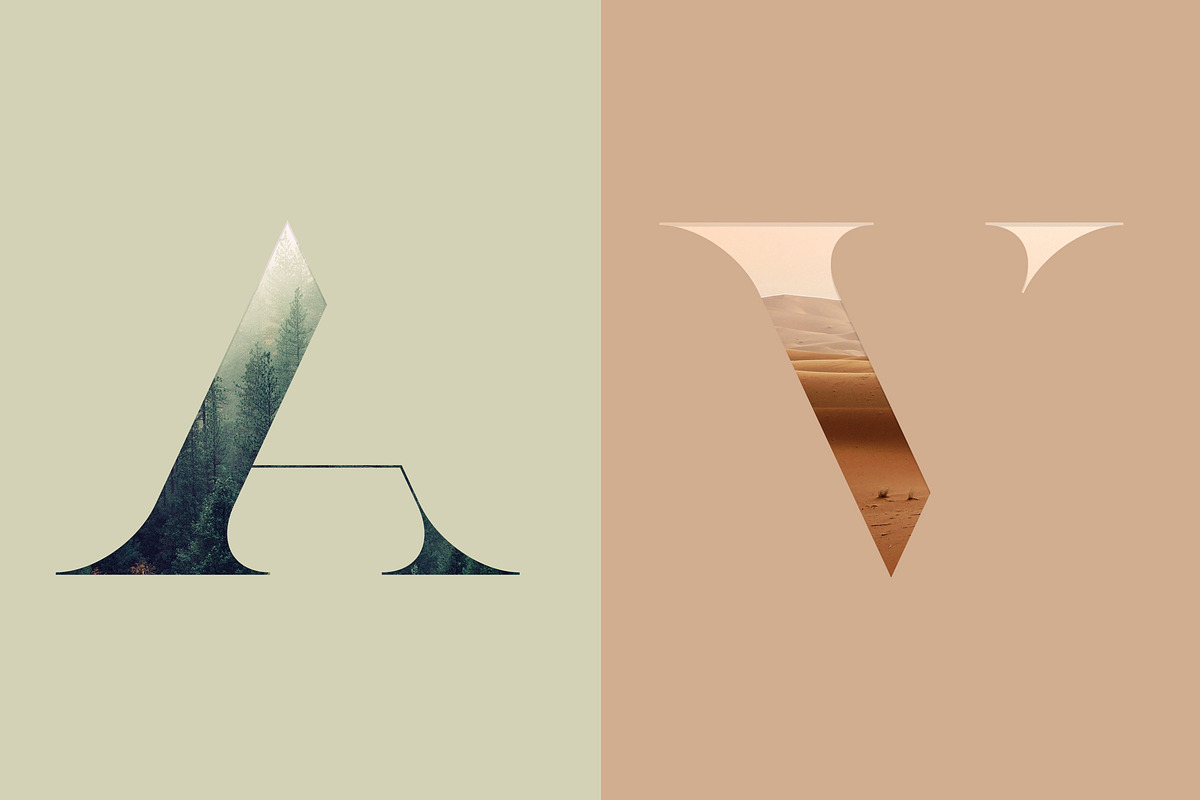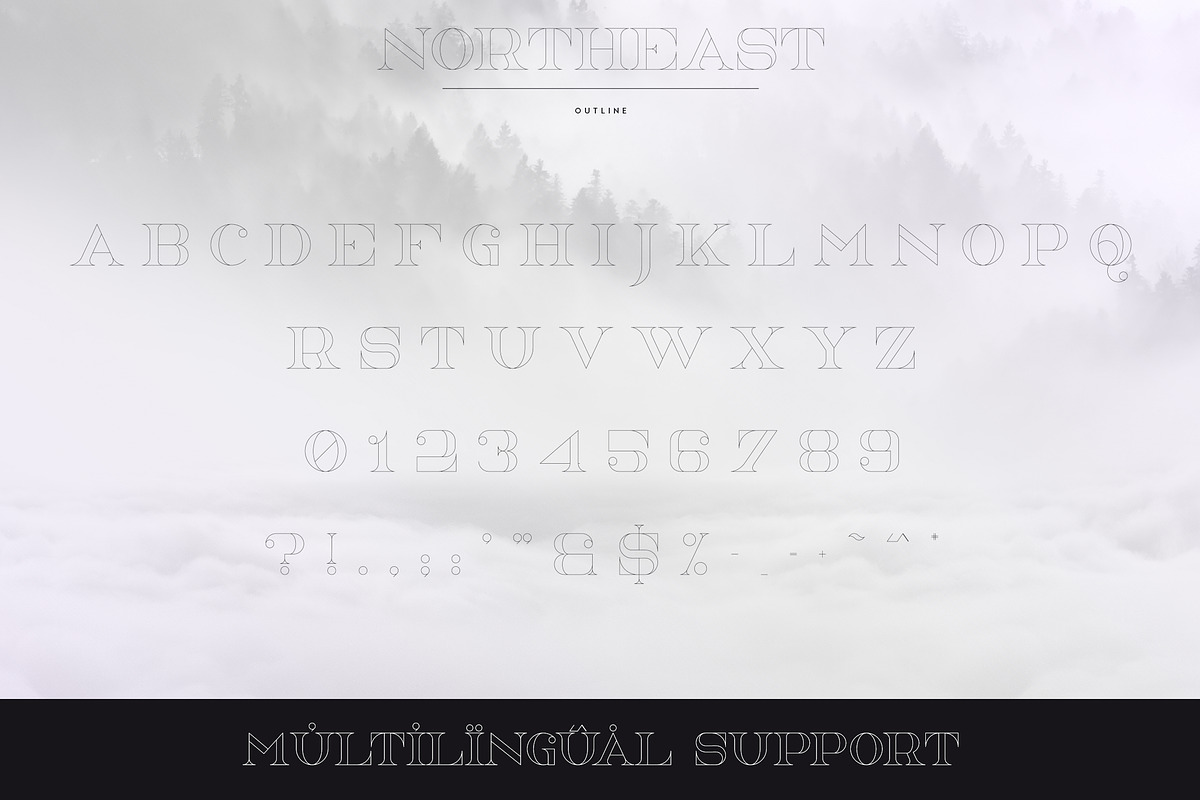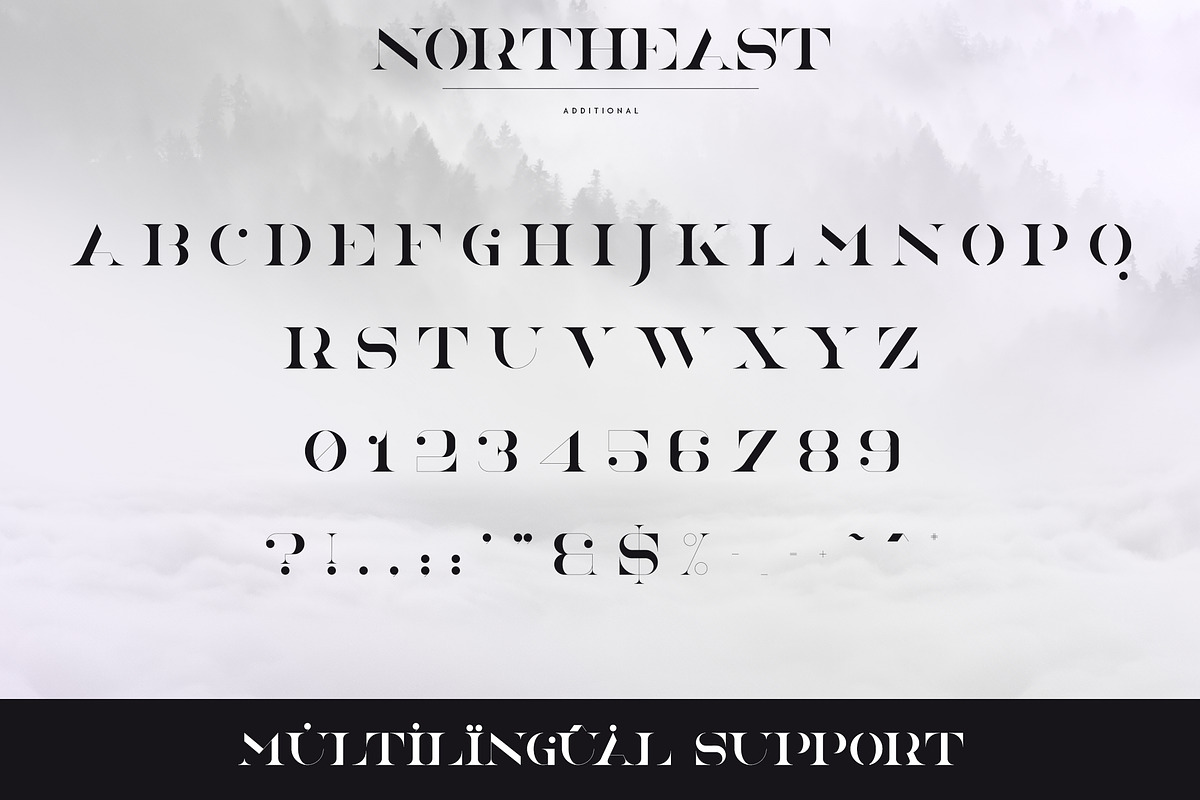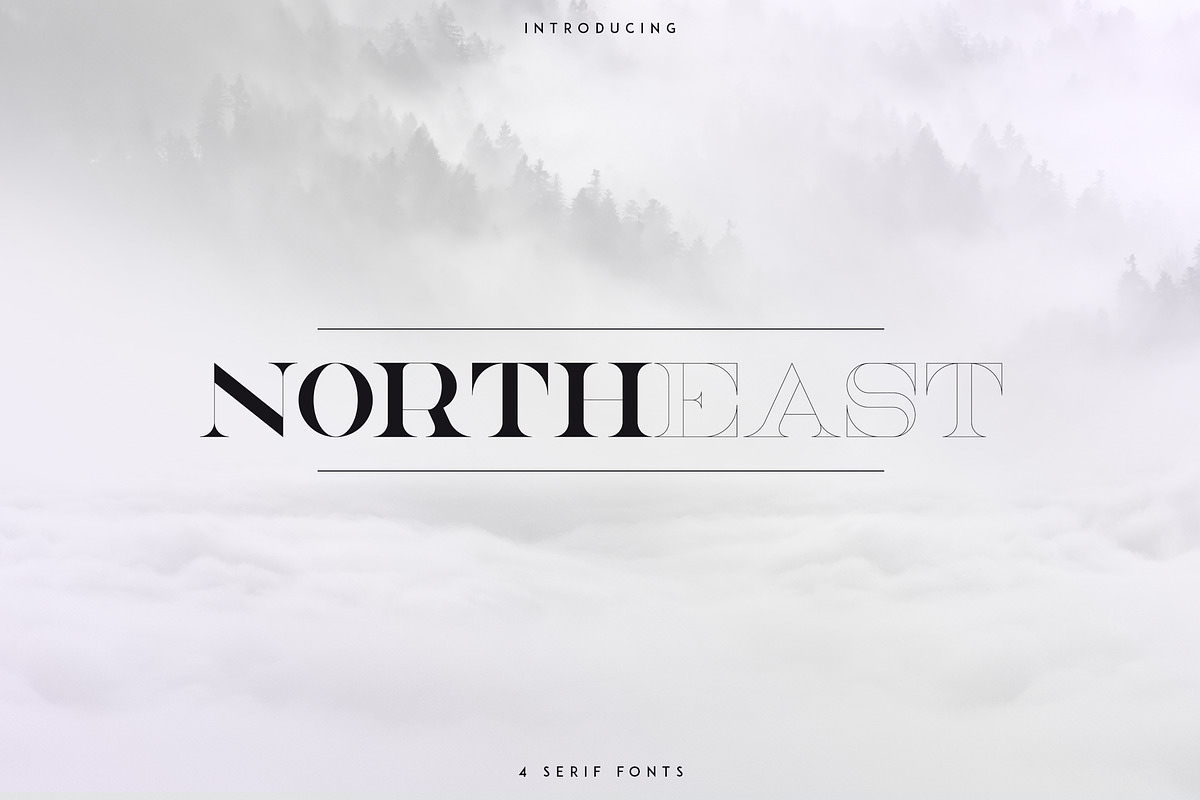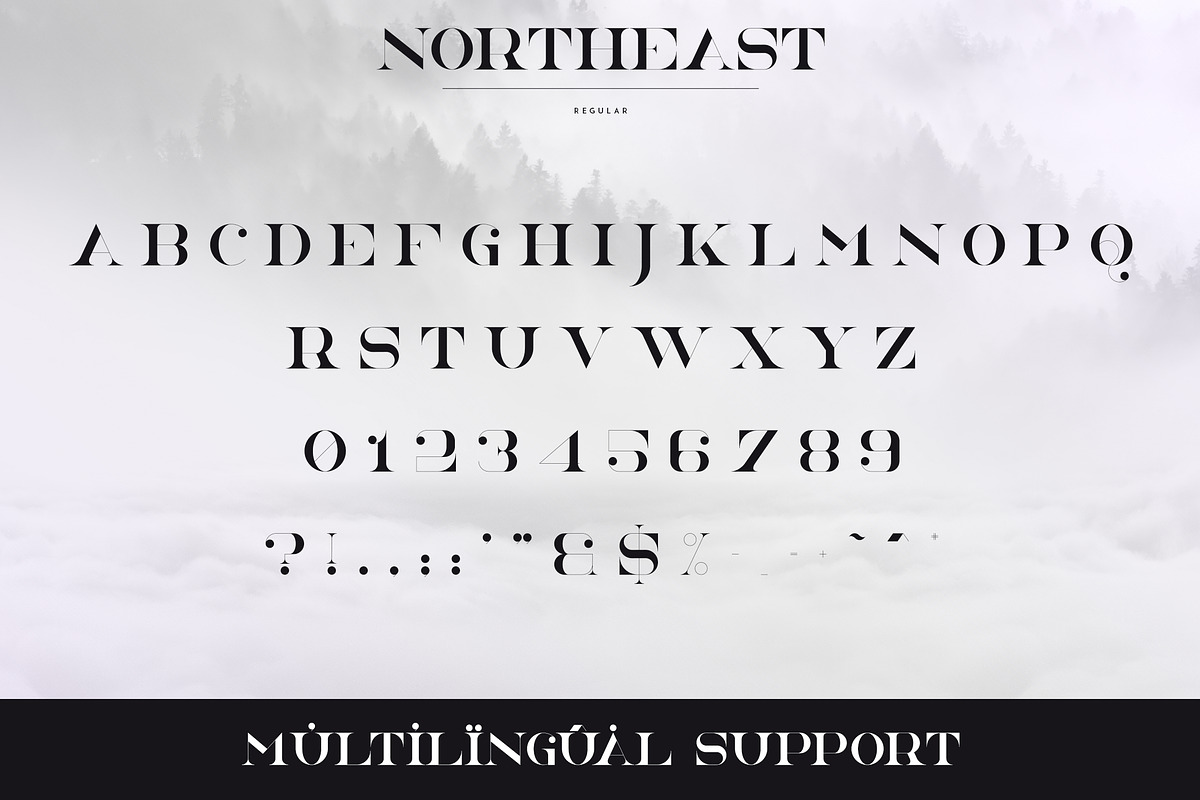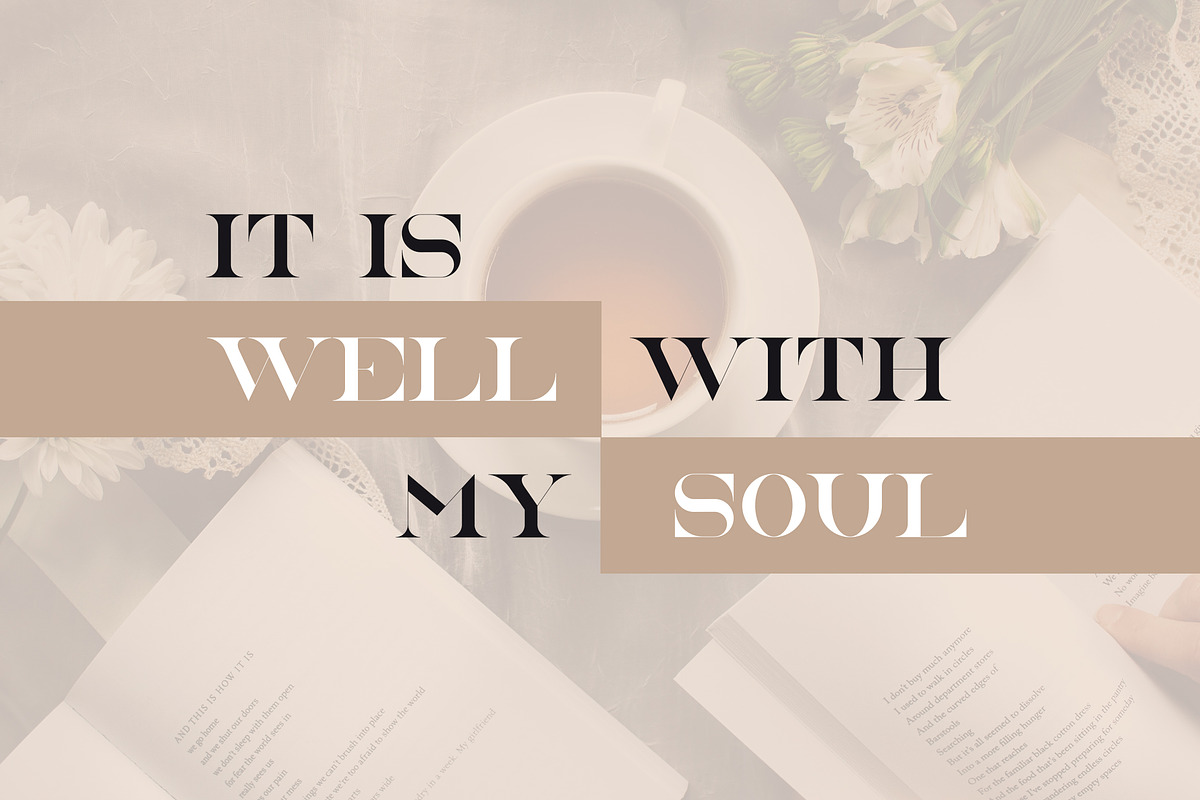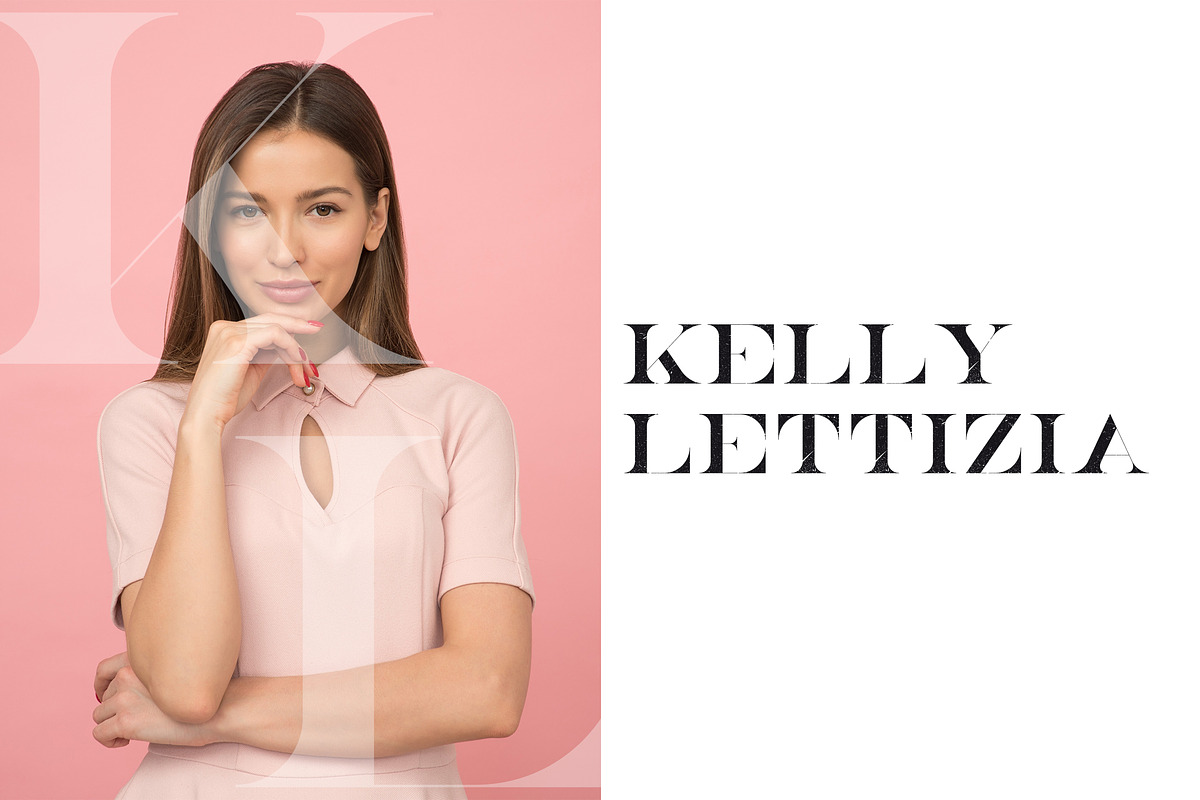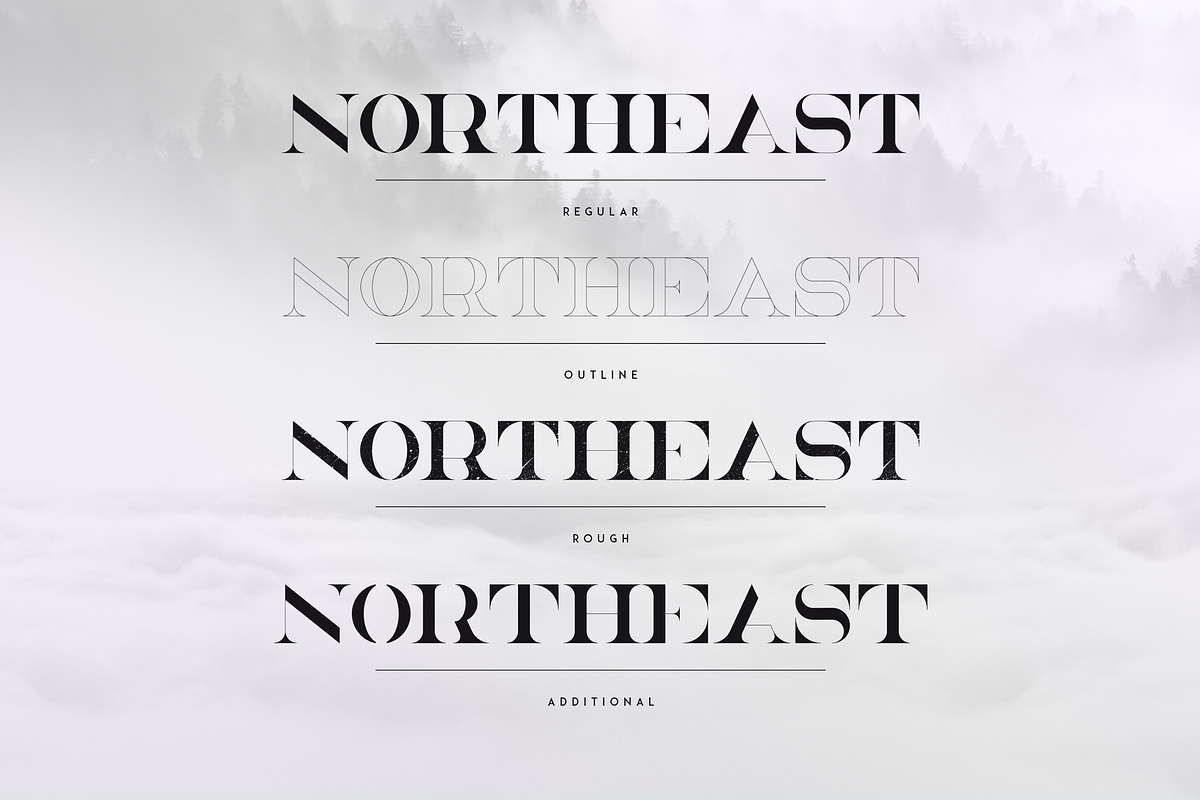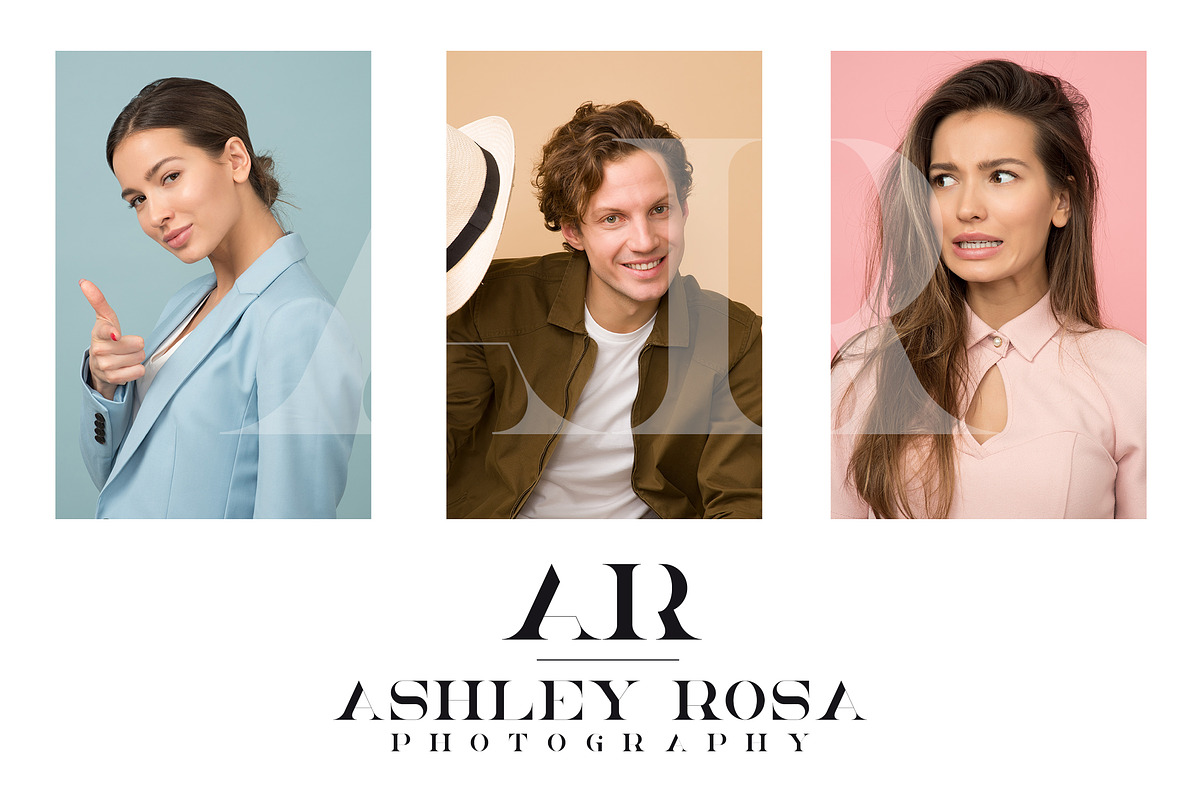
NorthEast - 4 serif fonts
NorthEast is elegant, bold typeface with 4 fonts and multilingual support. It's a very versatile font that works great in large and small sizes.
NorthEast is perfect for branding projects, home-ware designs, product packaging, magazine headers - or simply as a stylish text overlay to any background image.
- Uppercase,numeral,punctuation & Symbol
- 4 fonts
- Regular style
- Outline style
- Rough style
- Additional style